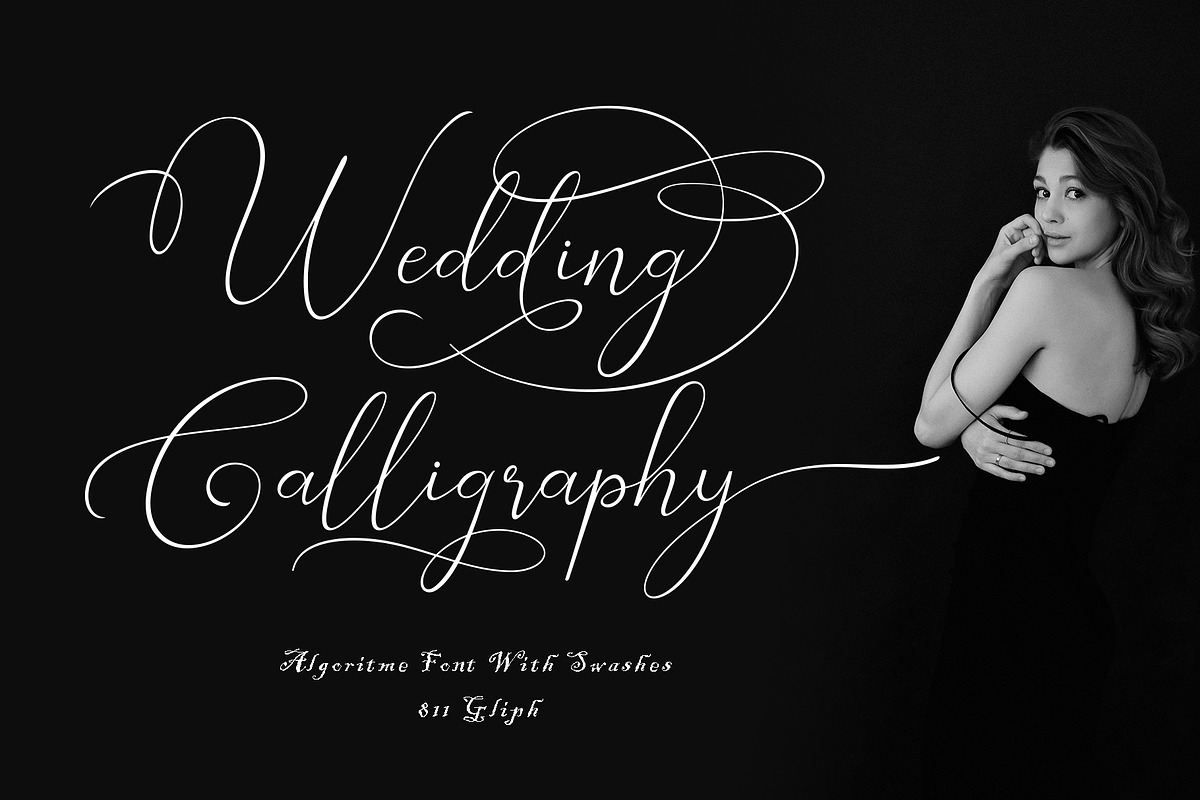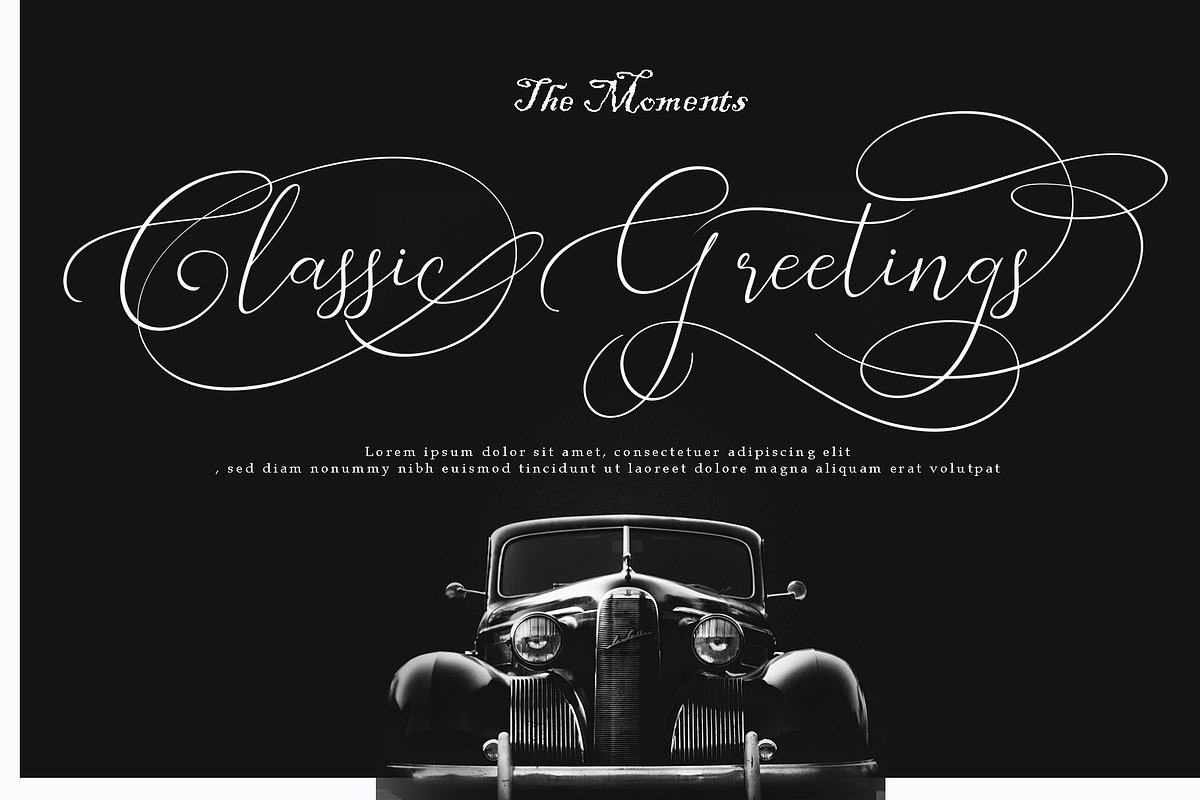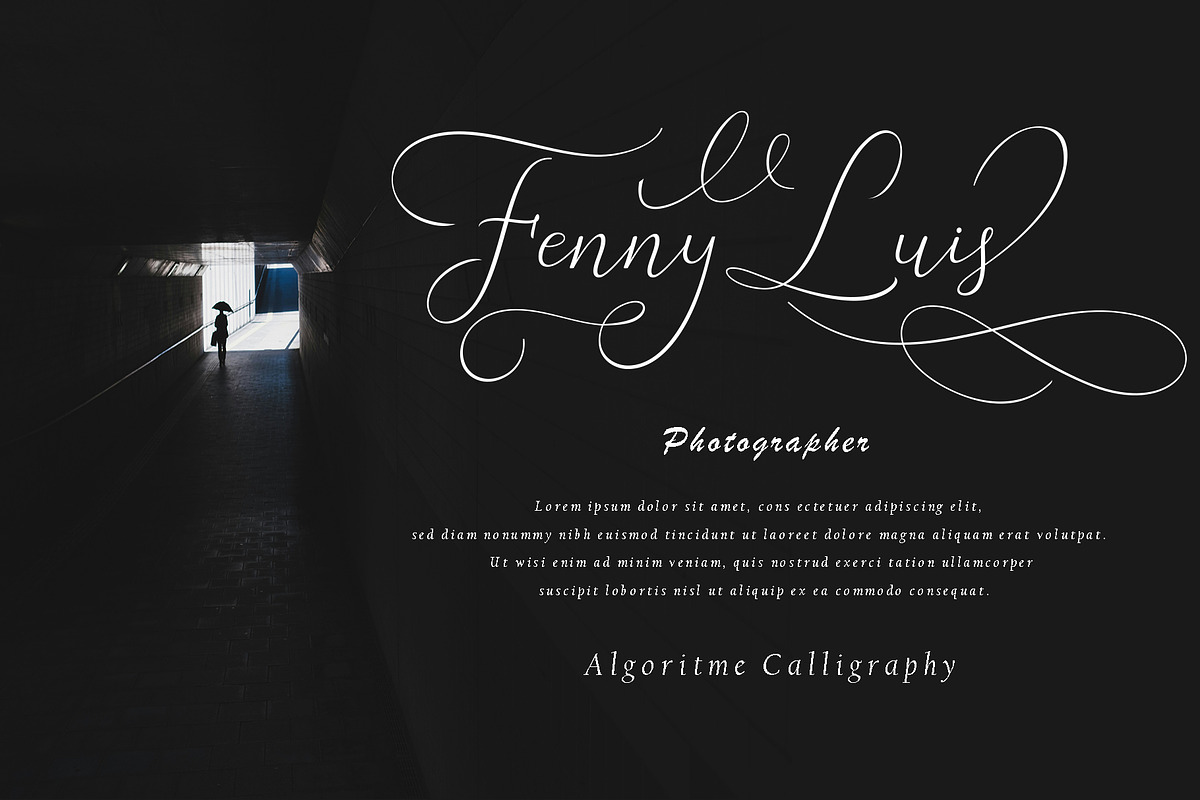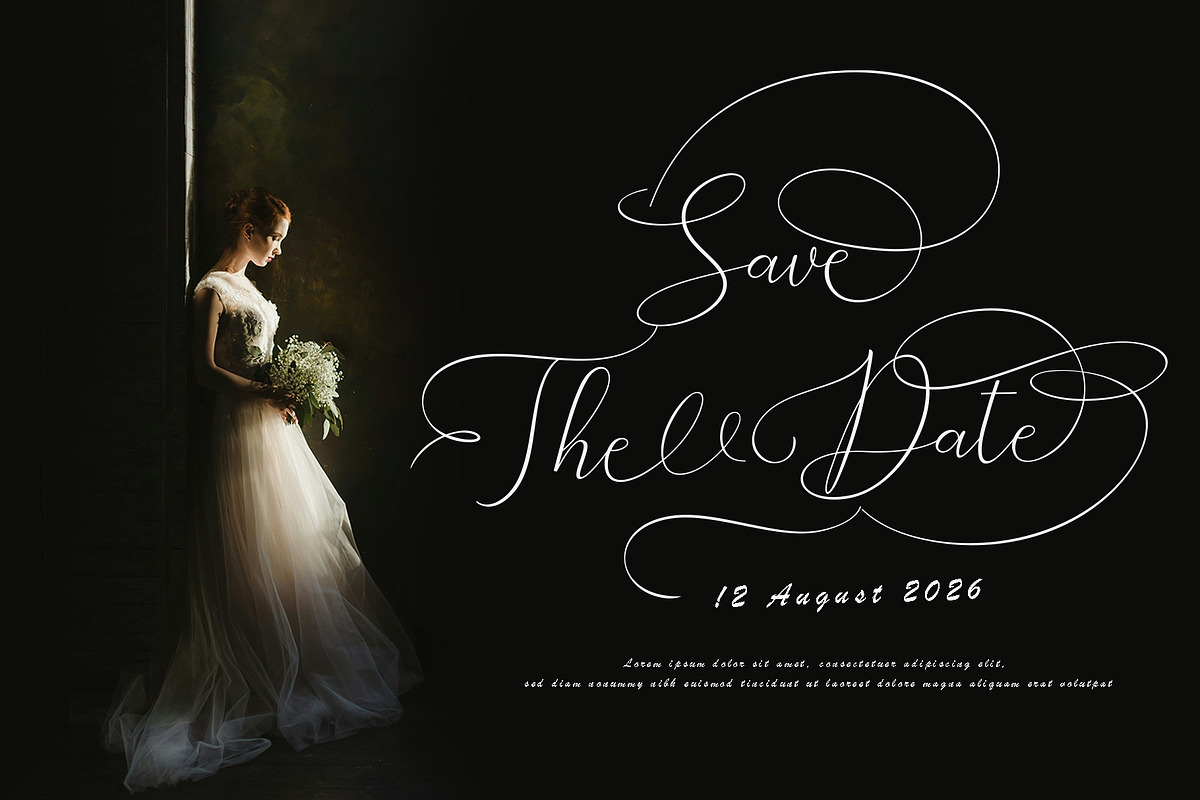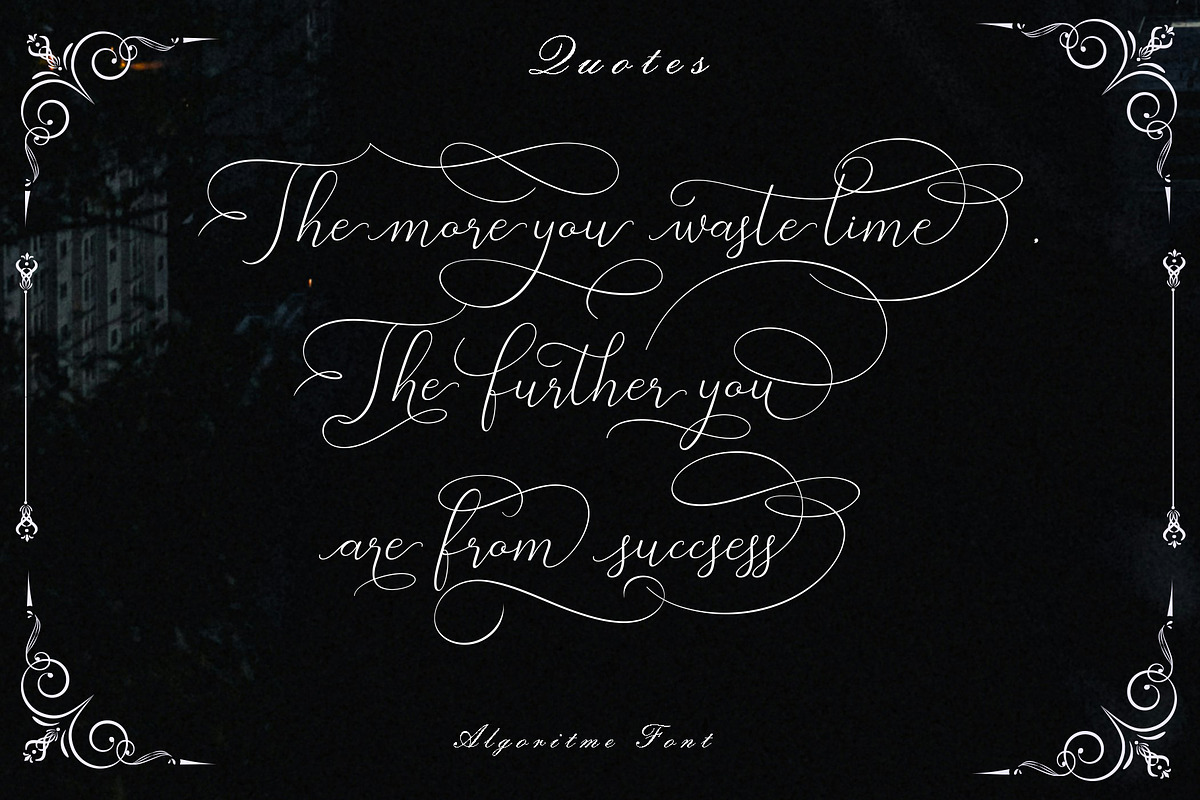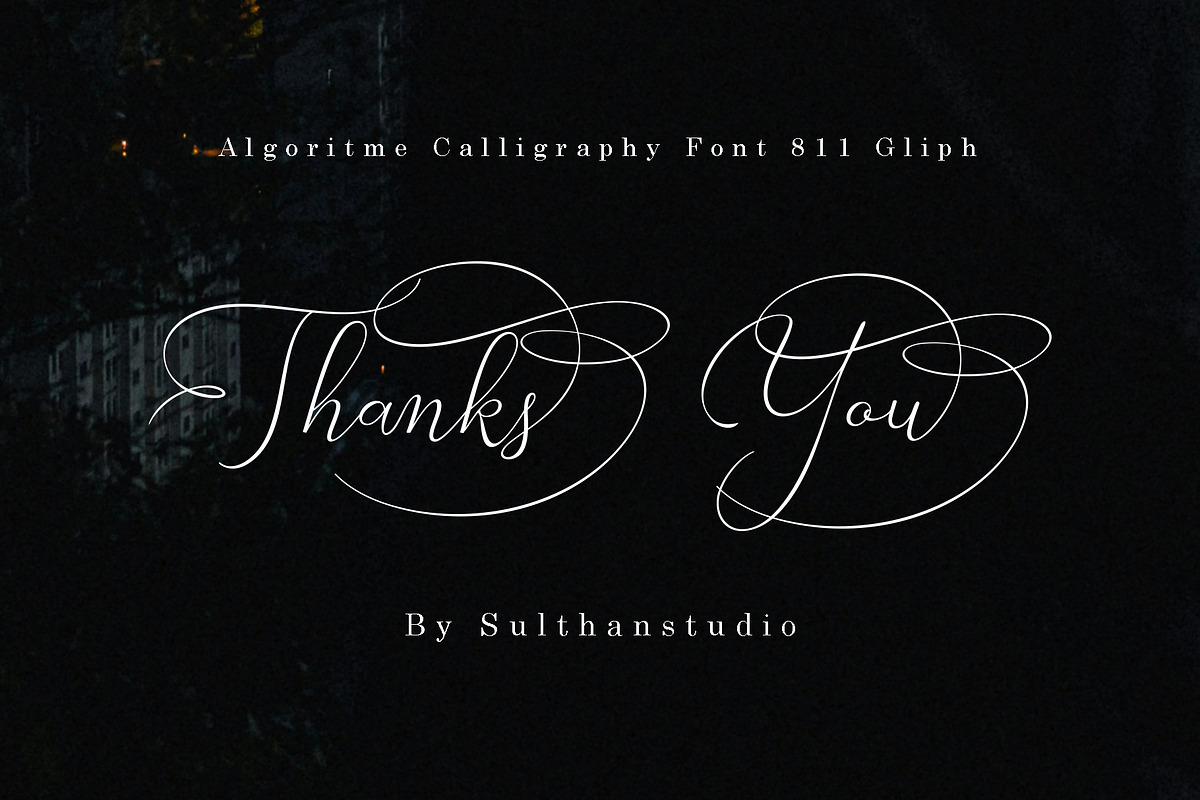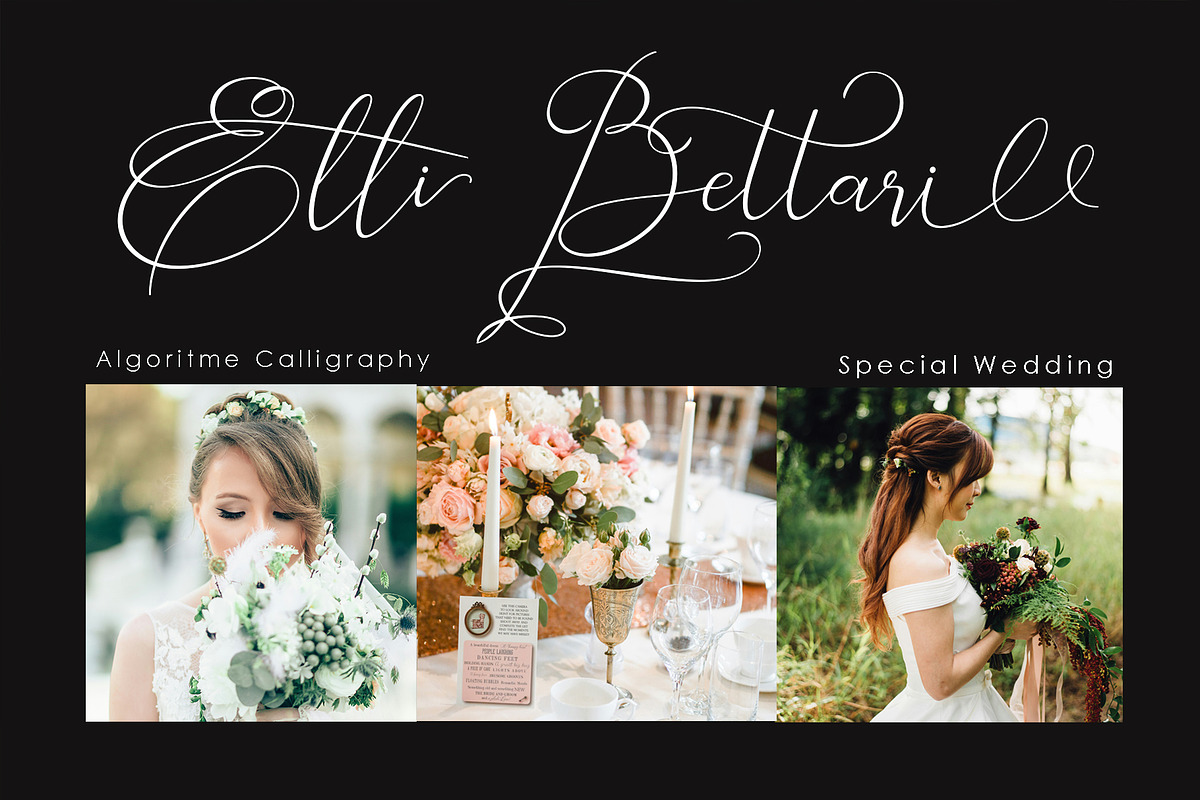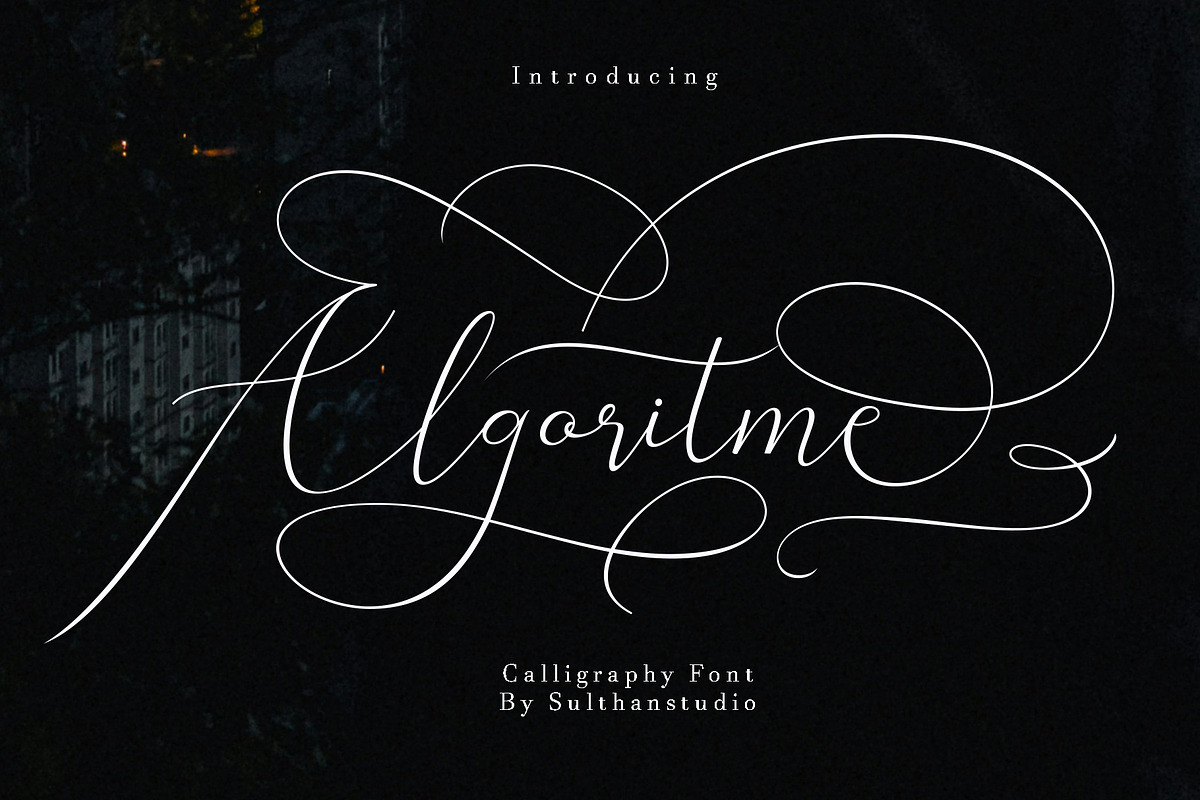
Algoritme
Algoritme is a calligraphy font as the name suggests this font is made very maturely and measured this beautiful calligraphy font has many swashes and alternatives also separate swashes on replacement capital letters for example on A.1.
font with a total of 811 glyphs there will be many choices that you can use according to your taste and needs that you want equipped with capital letters, lowercase letters, numbers, punctuation, swashes, alternatives, ligatures and also language support.